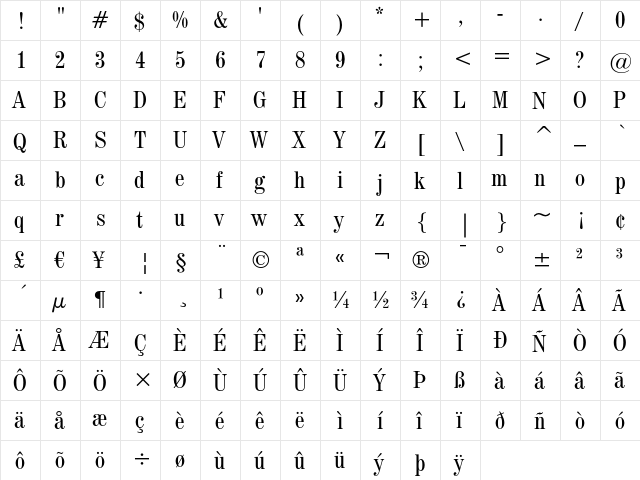
Century 725 Condensed
| Style | Condensed |
Design Context for Century 725 Typeface
Century 725 takes a measured approach to typography — its balanced proportions and neutral character make it a reliable workhorse for both digital and print work. The condensed width makes it efficient for tight spaces without sacrificing legibility.